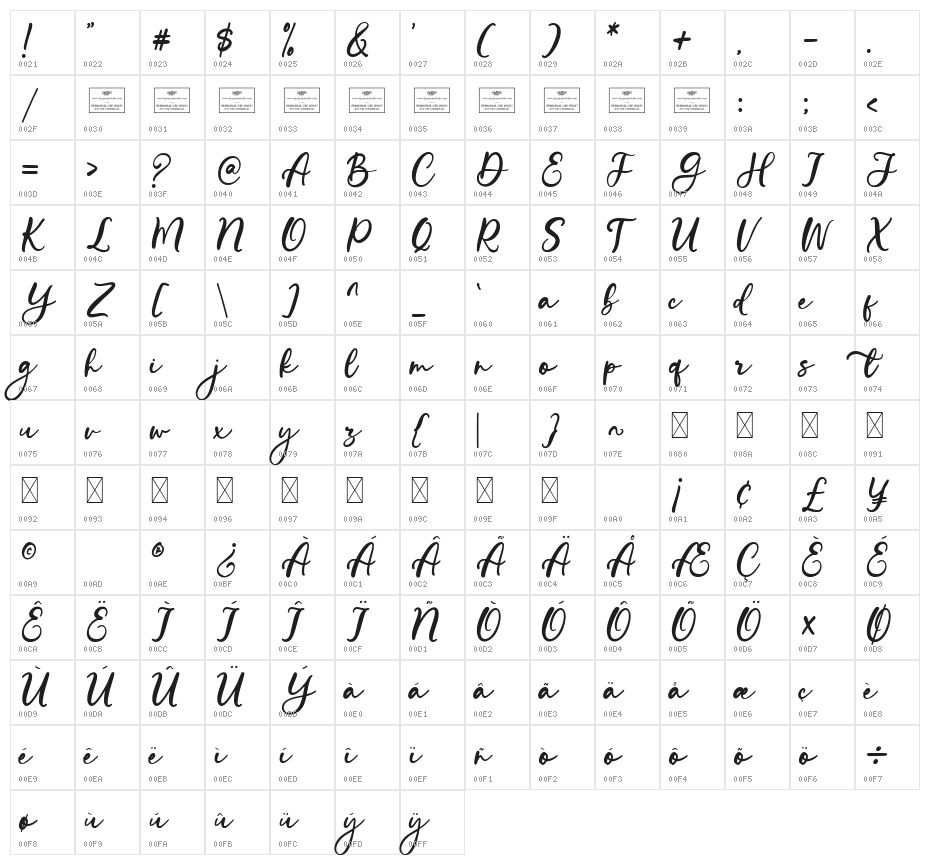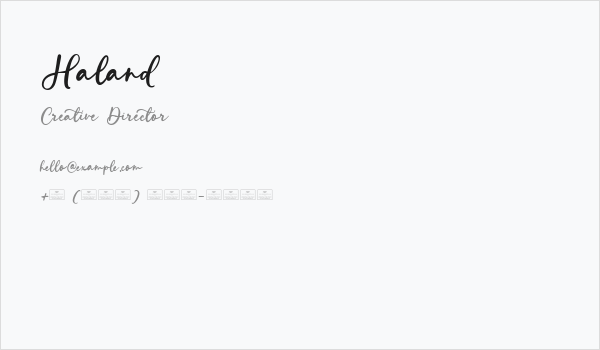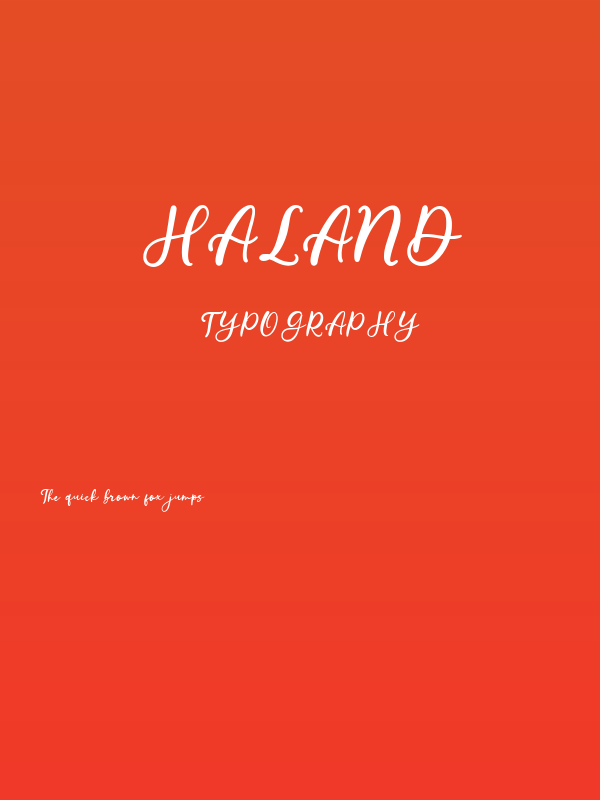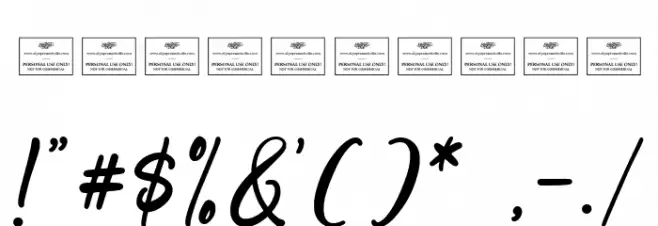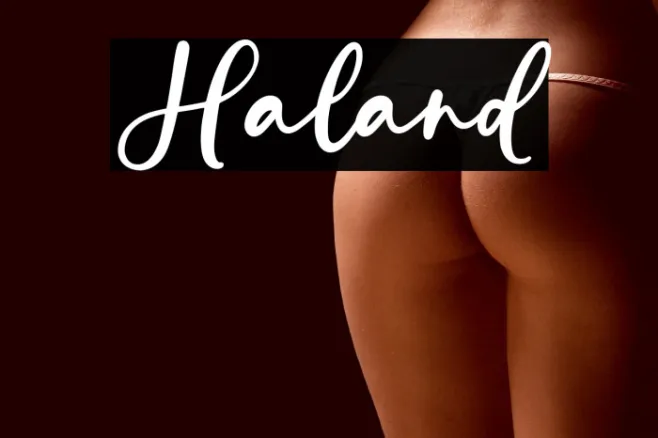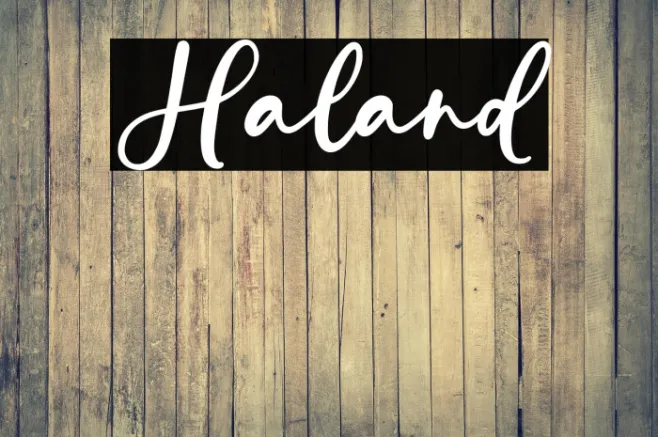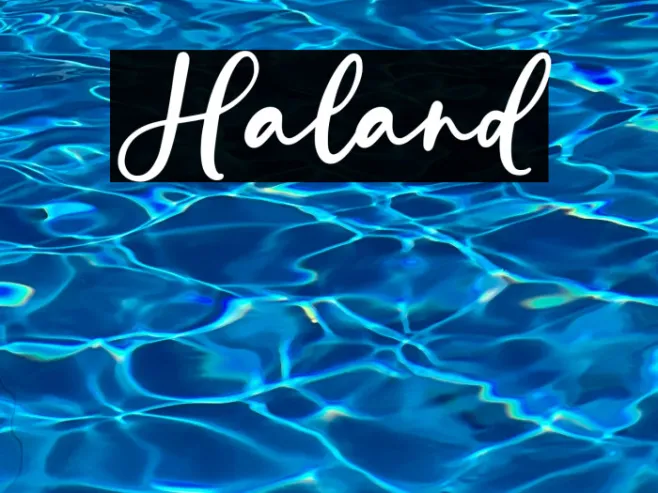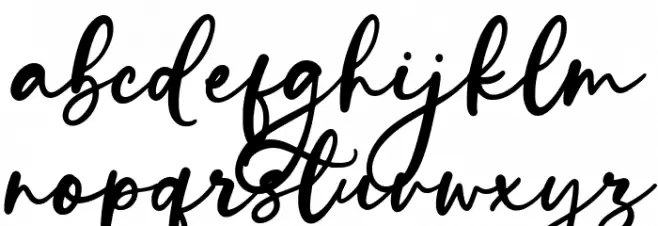
Haland Font
Haland Description
This font features a flowing, cursive style that exudes elegance and sophistication. The characters are interconnected, creating a seamless and fluid appearance. The uppercase letters are slightly more ornate, with gentle curves and loops that add a touch of flair. The lowercase letters maintain a consistent rhythm, enhancing readability while preserving the artistic quality. The numbers and special characters are designed to match the overall aesthetic, ensuring a cohesive look across all text elements. This font is ideal for projects that require a personal, handwritten touch, such as invitations, greeting cards, and branding materials.
| Proposed Projects | Ideal for invitations, greeting cards, branding, and any project needing a personal touch. |